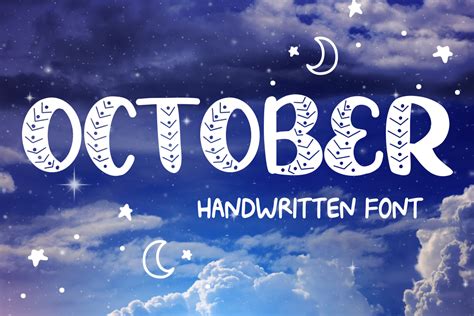
5 October Fonts That Will Take Your Design Projects to the Next Level!
Introducing 5 October Fonts
Are you looking for ways to take your design projects to the next level? Look no further than the 5 October fonts. These fonts are created by a small but dedicated team of designers and have been carefully crafted to provide an eye-catching and creative experience for anyone who uses them. The fonts are perfect for any type of project, from logos and websites to print materials and more. With a wide variety of styles and features, these fonts are sure to make your project stand out and help you reach your design goals. Read on to learn more about the 5 October fonts.
Versatile Fonts for Any Project
The 5 October fonts are designed to be versatile, allowing you to use them in a range of projects. Whether you’re creating websites, logos, print materials, or something else entirely, these fonts can help take your project to the next level. They come in a variety of styles, ranging from bold and modern to delicate and sophisticated. With so many options, you’re sure to find a font that fits your project perfectly.
Powerful Features for Professional Design
The 5 October fonts are packed with features that make them perfect for professional design projects. They have an extensive character set, allowing you to create unique and interesting designs that stand out. They also offer powerful customization options, so you can tailor the fonts to your project perfectly. And with a variety of weights and styles, you can create professional-looking designs quickly and easily.
Easy to Use and Highly Compatible
An Example of 5 October Fonts in Action
To give you an idea of how the 5 October fonts can help take your design projects to the next level, let’s look at an example. For this project, we’ll be creating a logo for a new business. To keep things simple, we’ll use the 5 October font called “Modern”. This font is bold and modern, making it a great choice for logos. We’ll use the font to create a bold and striking logo, featuring strong lines and a modern look. The result is a professional-looking logo that is sure to make a statement.
A Must-Have for Any Designer
The 5 October fonts are a must-have for any designer. They offer a wide variety of styles and features, making them perfect for any type of project. They’re also easy to use and highly compatible, so you can use them on any platform. And with an impressive character set, you can create unique and professional designs quickly and easily. If you’re looking for ways to take your design projects to the next level, the 5 October fonts are a great choice.
Take Your Design Projects to the Next Level
With the 5 October fonts, you can take your design projects to the next level. These fonts are perfect for any type of project, offering a wide variety of styles and features. They’re also easy to use and highly compatible, so you can use them on any platform. And with an impressive character set, you can create unique and professional designs quickly and easily. If you’re looking for ways to take your design projects to the next level, the 5 October fonts are a great choice.
An Investment for Your Design Career
The 5 October fonts are a great investment for any designer. Not only do they offer a wide range of styles and features, but they’re also easy to use and highly compatible. This makes them perfect for any type of project. And with an impressive character set, you can create unique and professional designs quickly and easily. Investing in the 5 October fonts is a great way to take your design projects to the next level.
Conclusion
The 5 October fonts are perfect for any type of project, offering a wide variety of styles and features. They’re also easy to use and highly compatible, so you can use them on any platform. And with an impressive character set, you can create unique and professional designs quickly and easily. If you’re looking for ways to take your design projects to the next level, the 5 October fonts are a great choice. Invest in the 5 October fonts today and take your design projects to the next level!